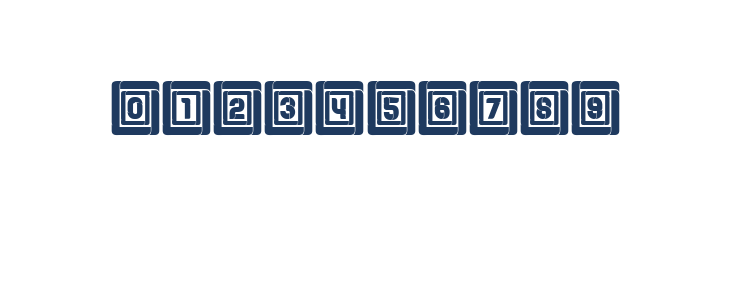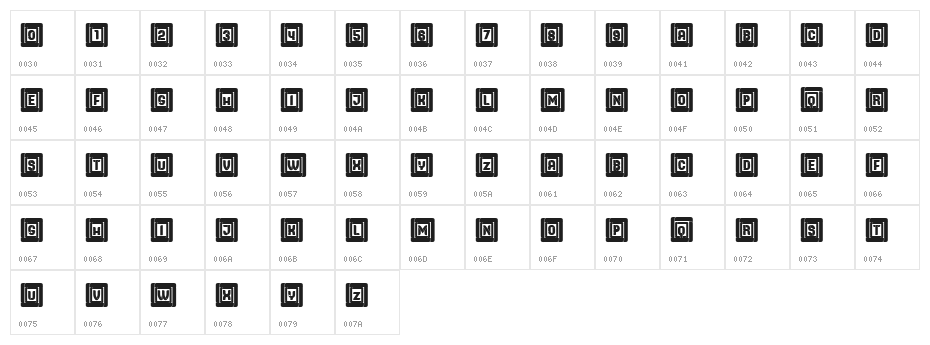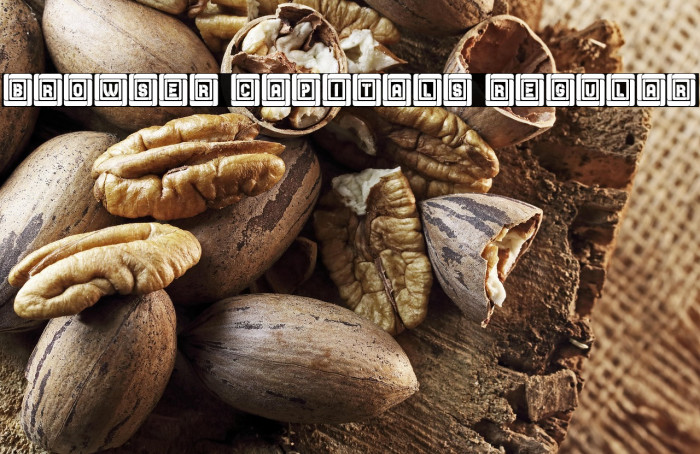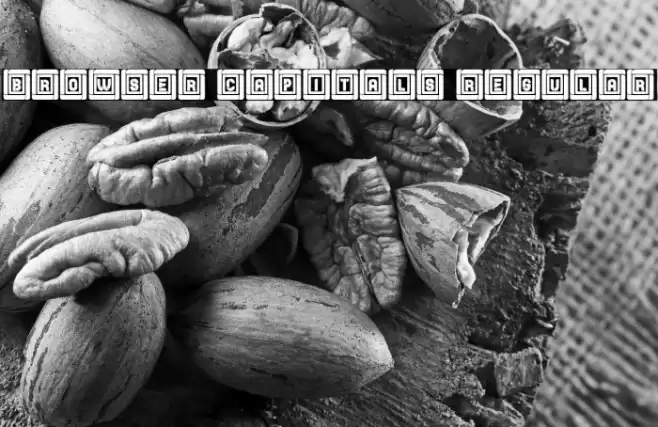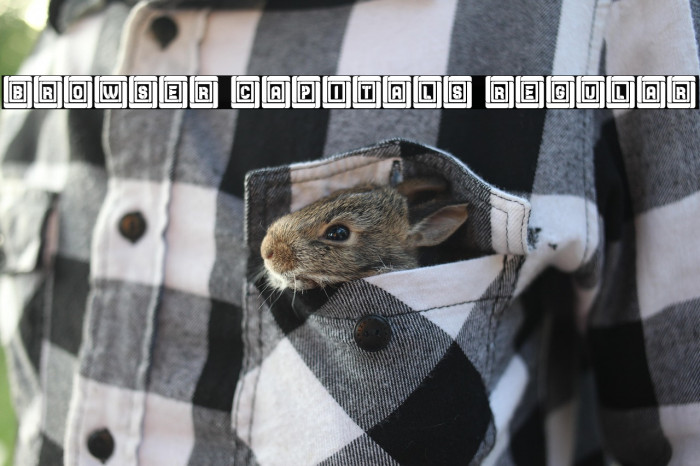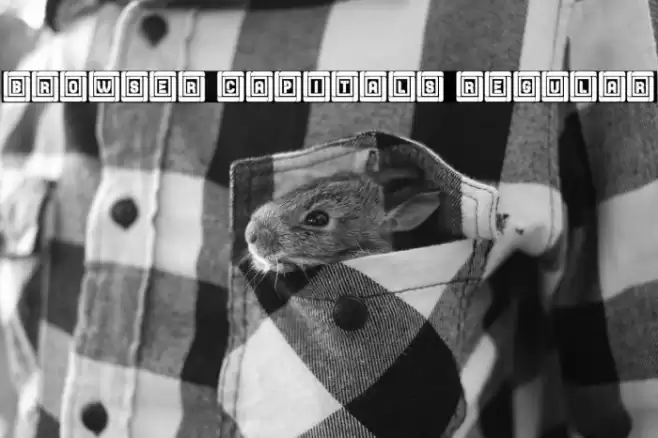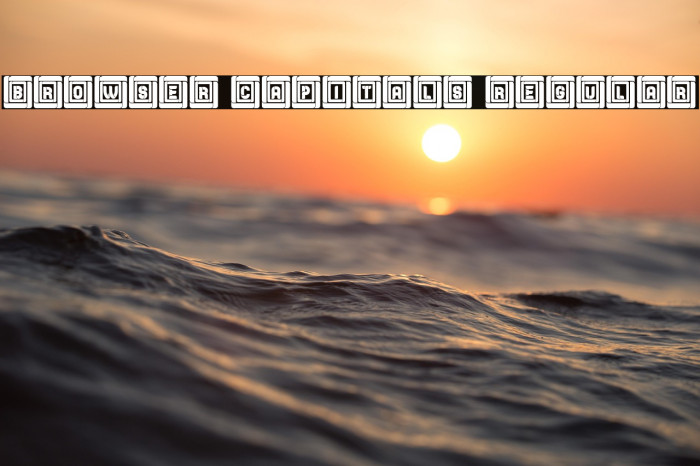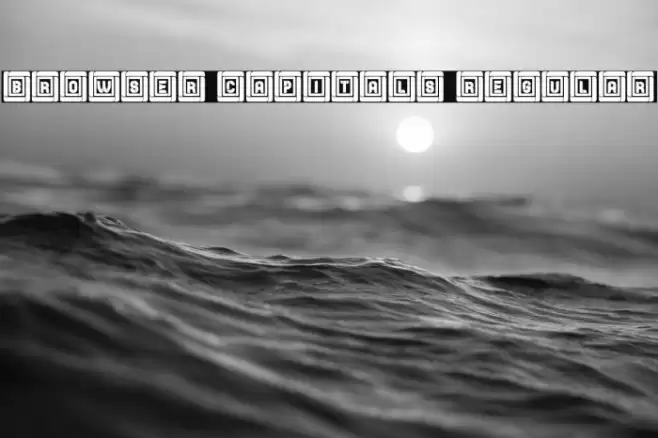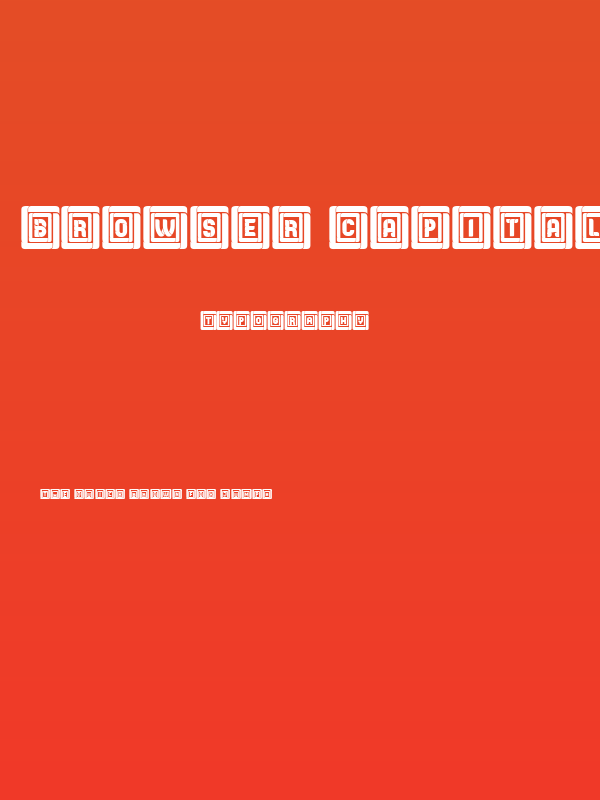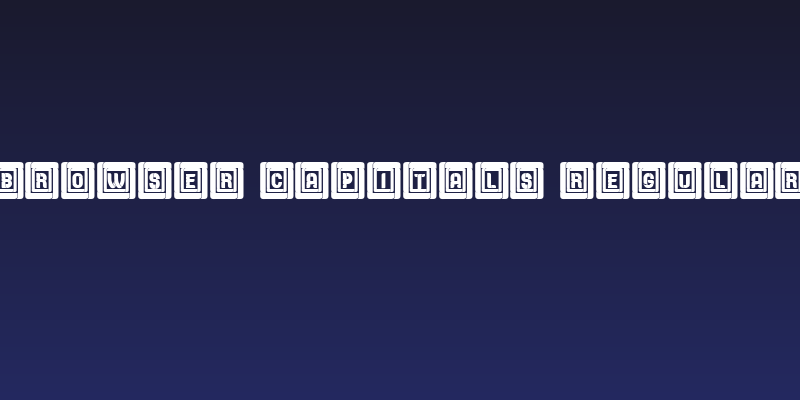
Browser Capitals Regular Font
Browser Capitals Regular Description
This font features a bold, blocky style with each character enclosed in a square frame, reminiscent of vintage typewriter keys or retro digital displays. The letters are uppercase and maintain a consistent height and width, creating a uniform appearance. The thick strokes and solid forms give it a strong presence, making it ideal for attention-grabbing designs. The geometric shapes and enclosed design elements add a decorative touch, while the uniformity ensures readability. This font is well-suited for projects that require a nostalgic or industrial feel, such as posters, signage, or branding materials.
| Use Case | Headlines, Logos, Signage |
| Proposed Projects | Ideal for retro-themed posters, industrial signage, branding materials, and digital displays. |